Morning & Rockland Font Pairing
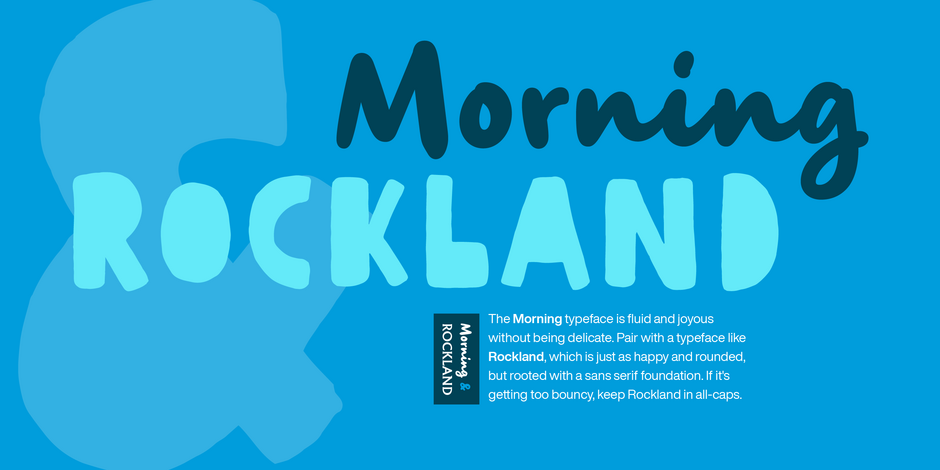
Morning’s spirited, bouncy cursive letterforms feel like a painter’s signature; it’s a familiar style but with something of a twinkle in its eye. The style of Morning looks to imitate wet brush and ink lettering, and dances between seriousness and play.
Much like Morning, Rockland is an original, confident and cheeky little font; characterised by its boldness and dense letterforms, which boast a solid texture and distinctive lack of counters. Drawn with a marker pen, the bounciness of Rockland counteracts its solidity to make for a friendly aesthetic that’s as confident as it is playful.